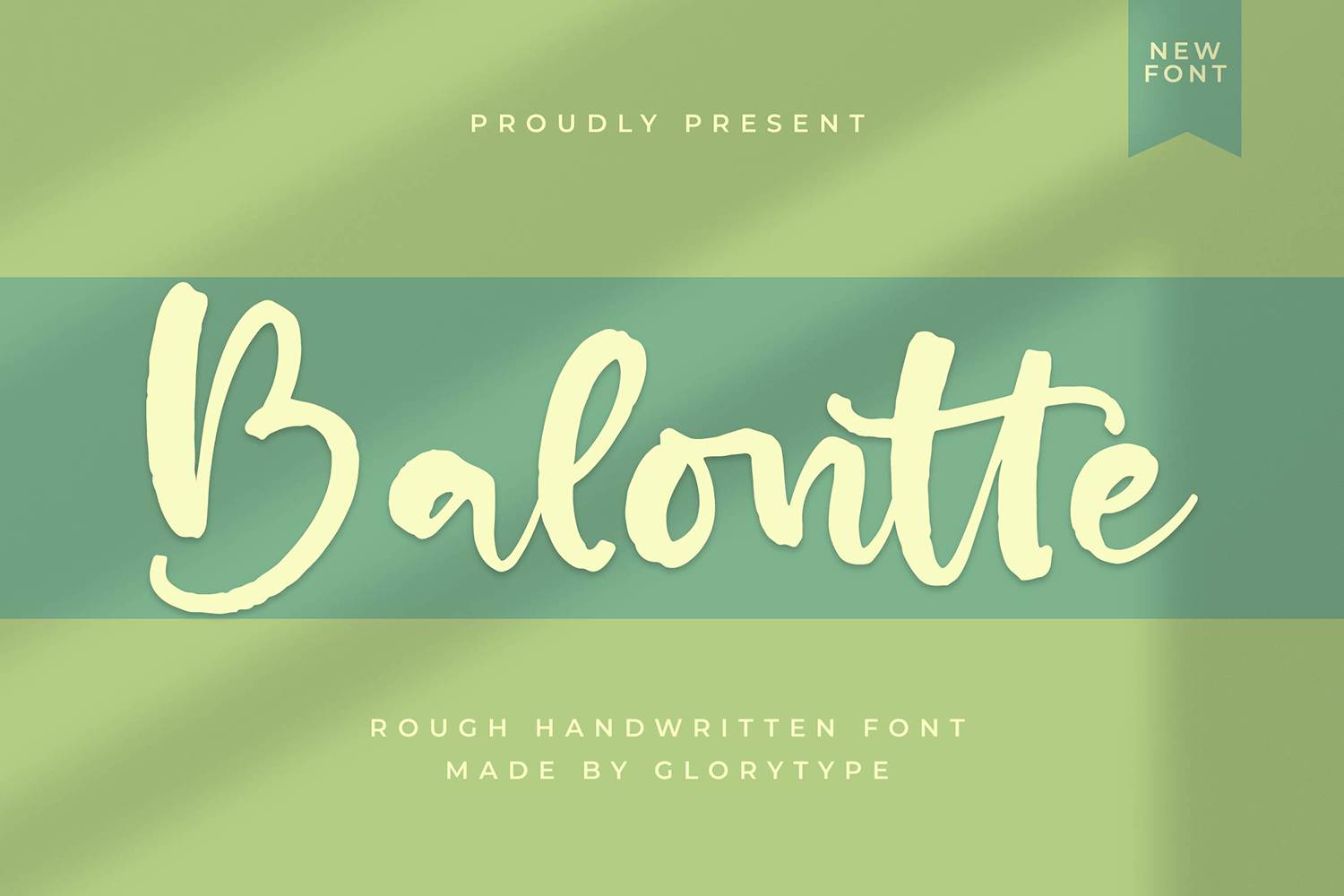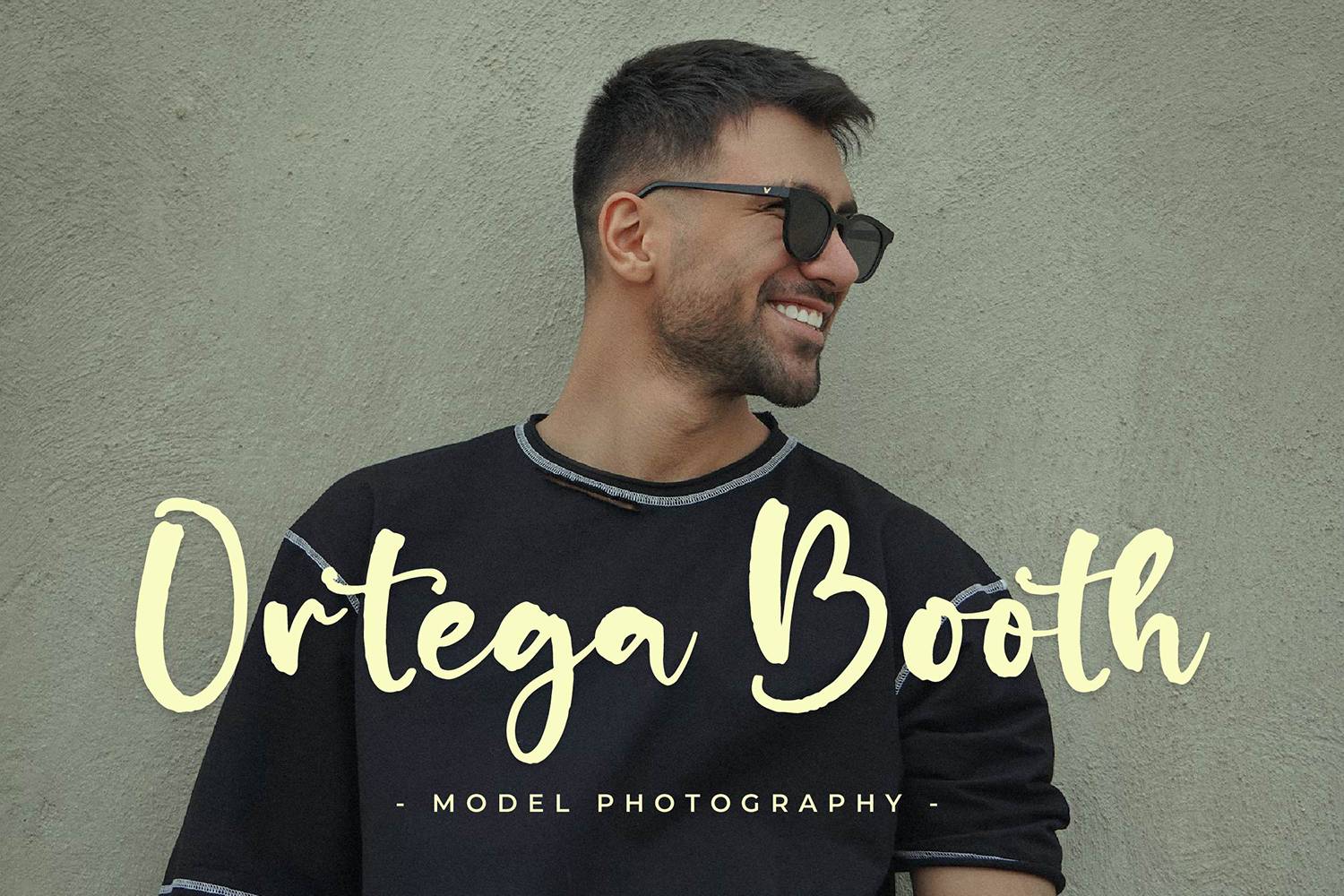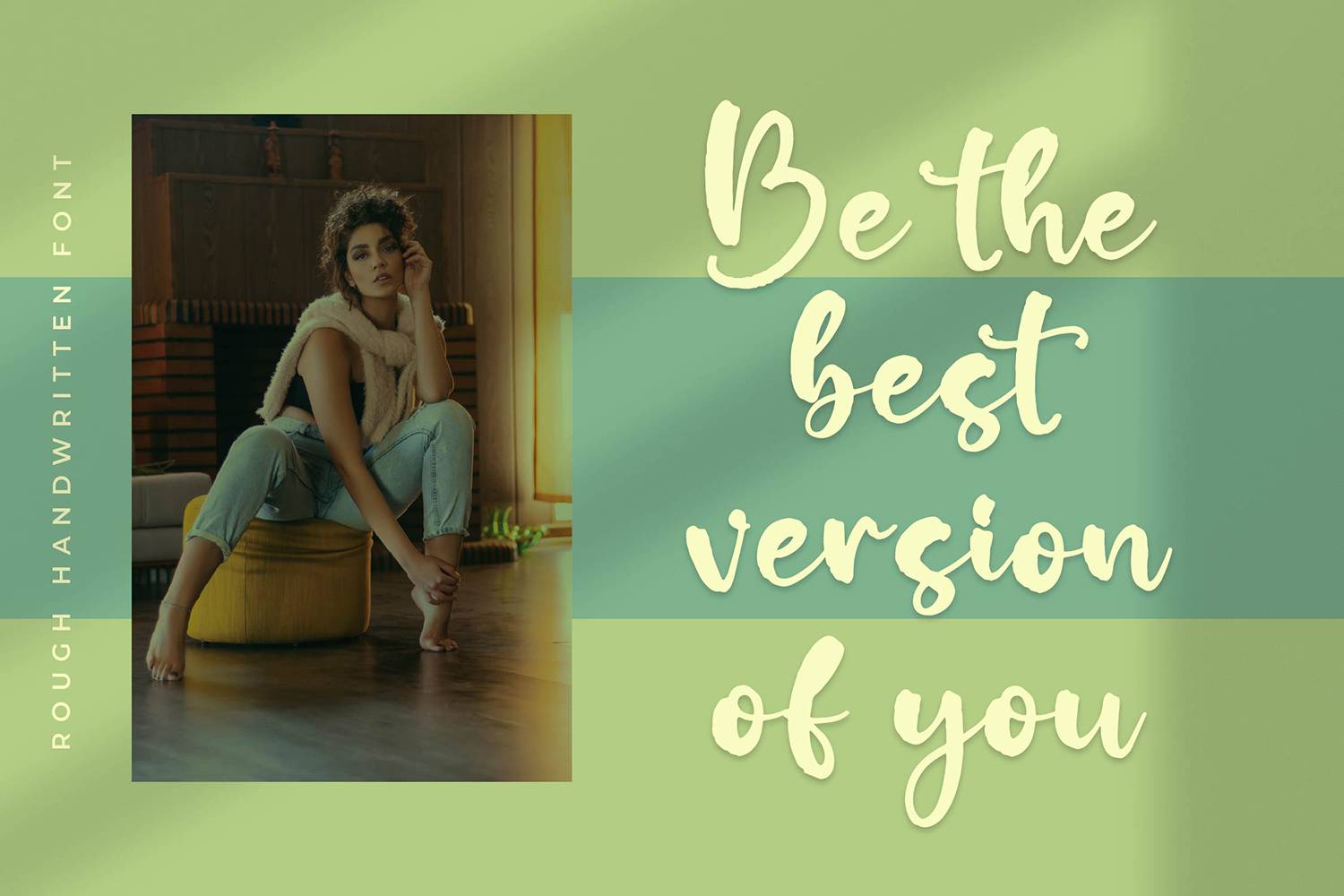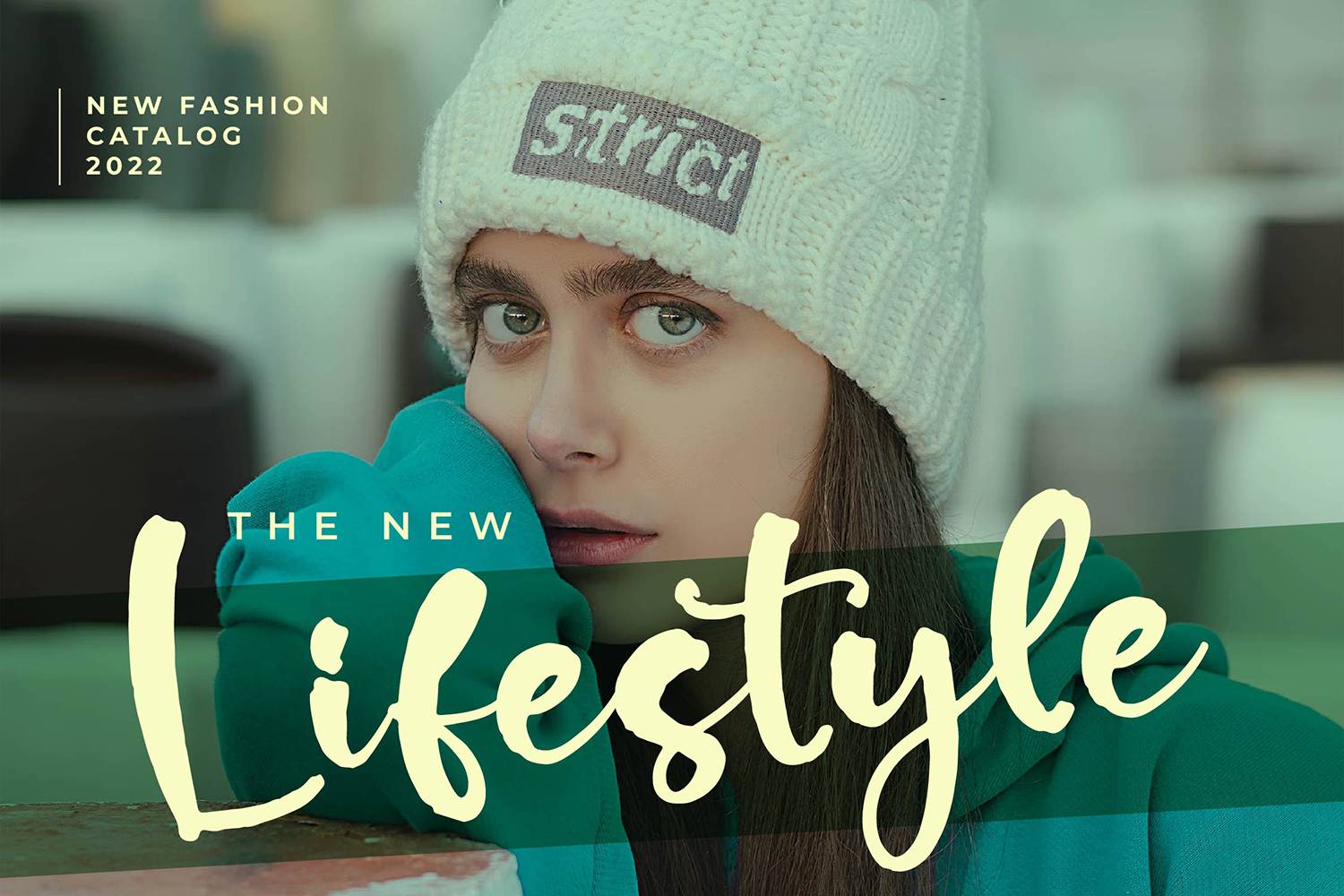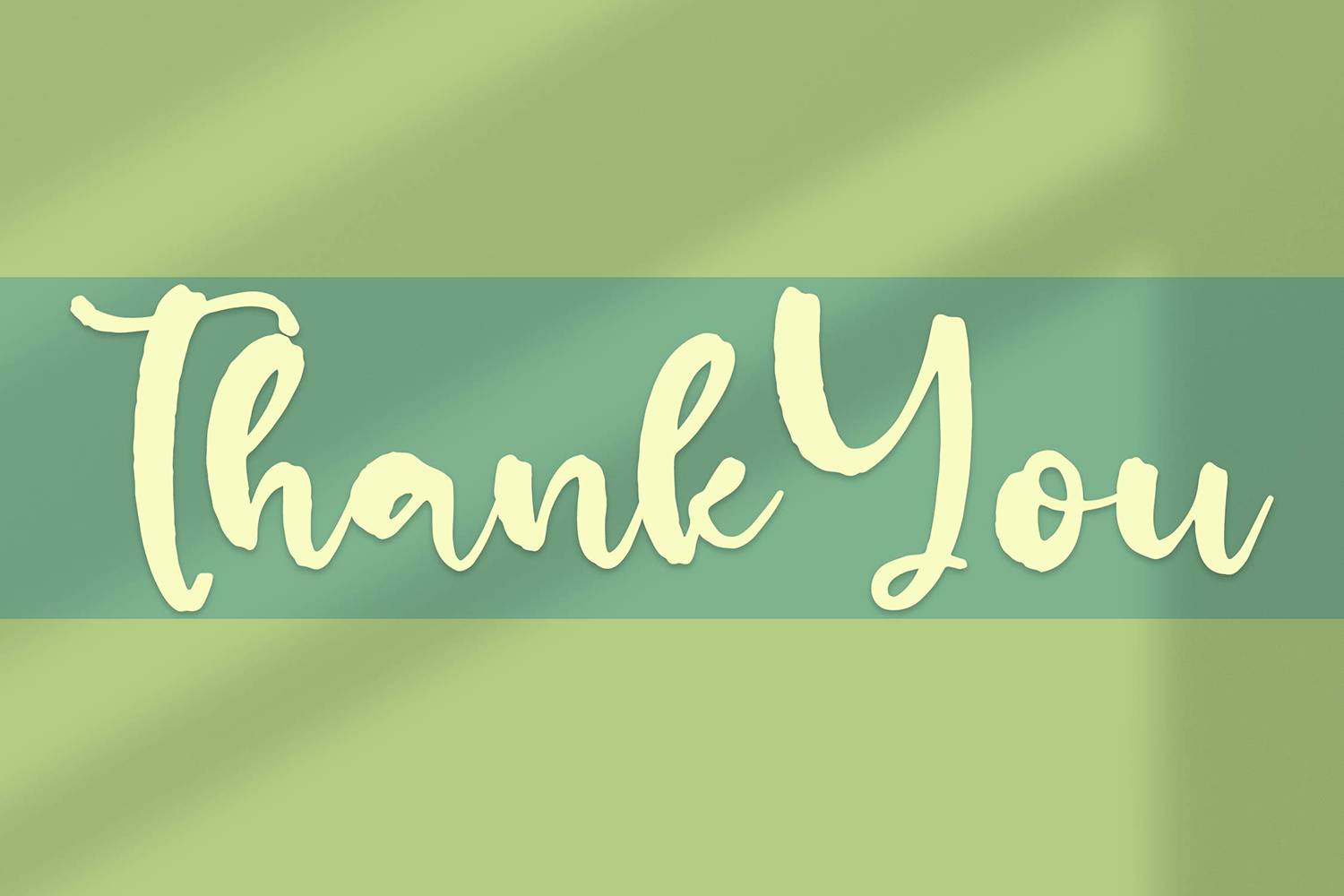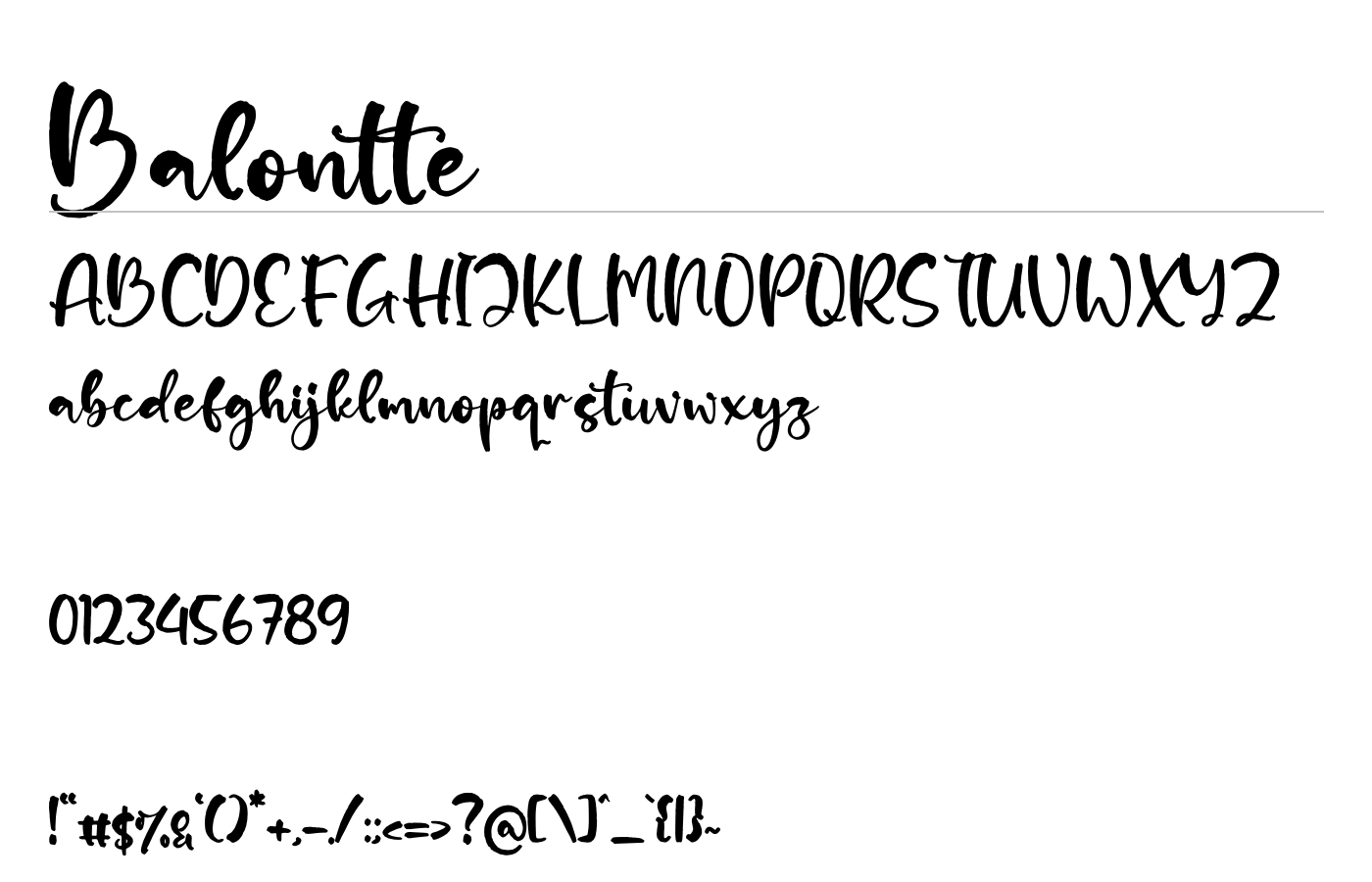
Balontte is a playful, hand-drawn script font with a casual and friendly vibe, featuring uneven strokes and lively letterforms that mimic brush lettering. It works well for creative projects, branding, and invitations where a personal, artistic touch is desired. Its bold, flowing style makes it ideal for headlines and logos that want to convey warmth and uniqueness.
Balontte Font
About Balontte Font